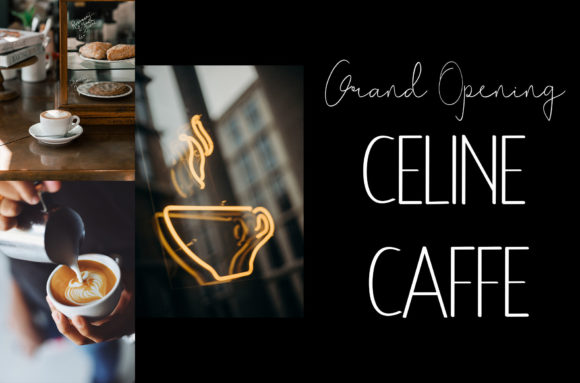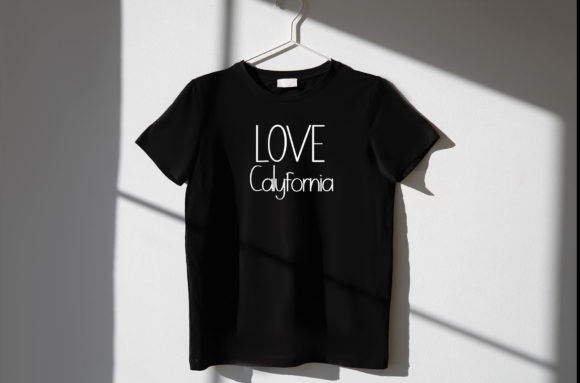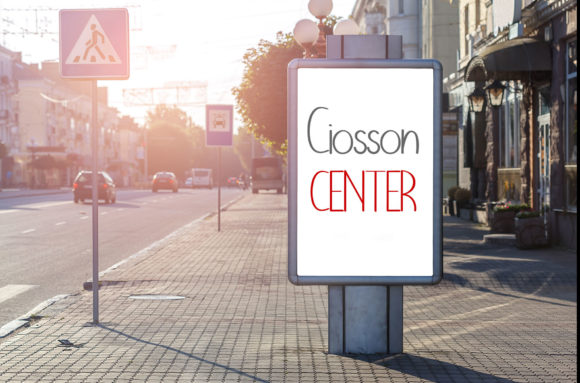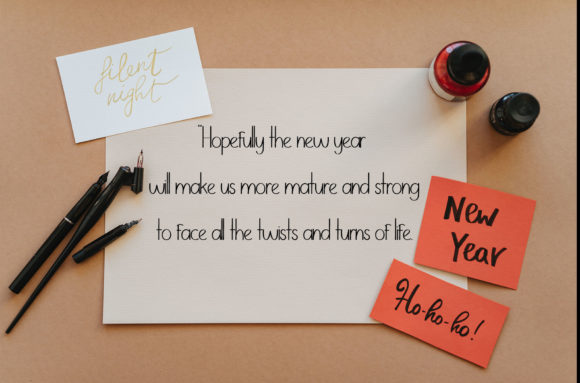
Introduction to Hey Honey Font
Hey Honey is the perfect font for your daily life.
This minimal sans serif font will make sure that your ideas will look impeccable and perfect .
Key Features of Hey Honey Font
Why Choose Hey Honey Font?
Hey Honey Font offers exceptional quality and versatility, making it a valuable addition to your design toolkit. Whether you’re creating for personal projects or commercial use, Hey Honey Font delivers professional results.